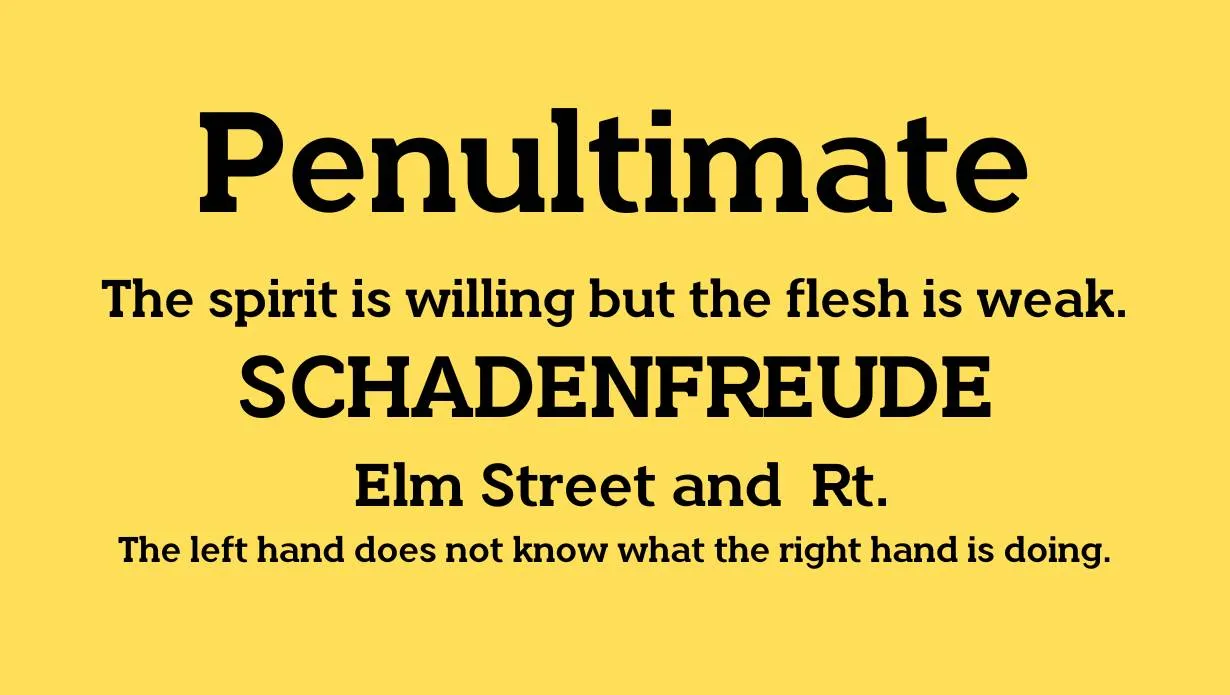
Quotus Slab is a strong slab serif font featuring sturdy and square-shaped serifs. It is a great option for headlines, titles, and logos that need a bold and powerful appearance.
Quotus Slab serves its purpose by conveying strength and stability, making it suitable for projects that demand a robust and assertive typeface. Its powerful design ensures that the text stands out prominently, commanding attention and confidently delivering a message.
Quotus Slab Font Info
| Name | Quotus Slab Font |
| Designer | deFharo |
| Style | Slab-Serif |
- Quotus Slab Regular
- Quotus Slab Bold
- Quotus Slab Italic
- Quotus Slab Light